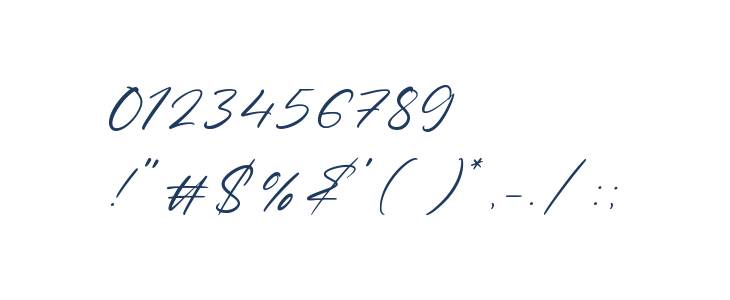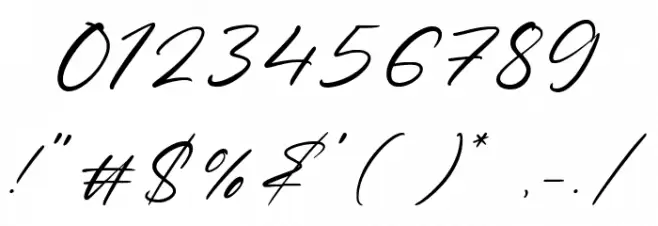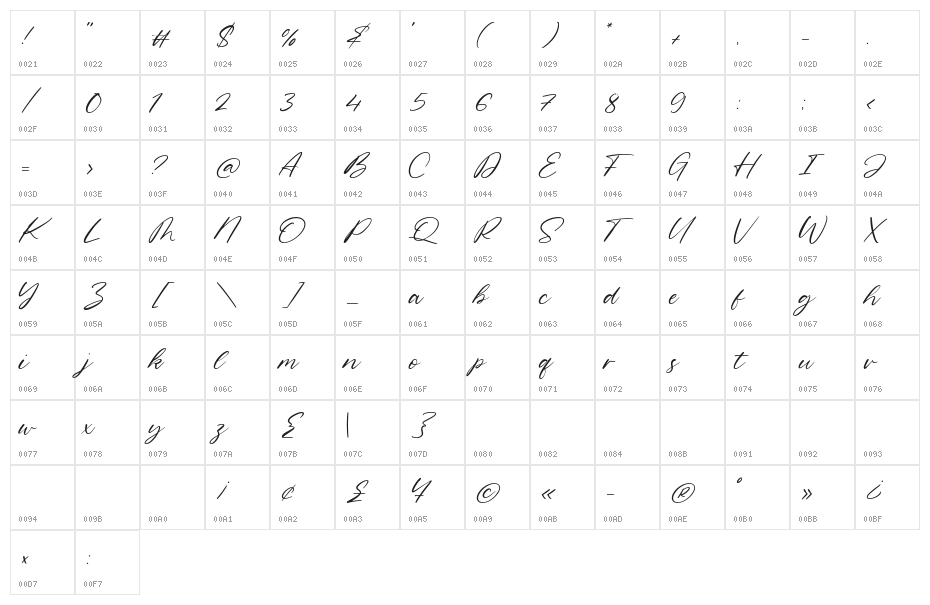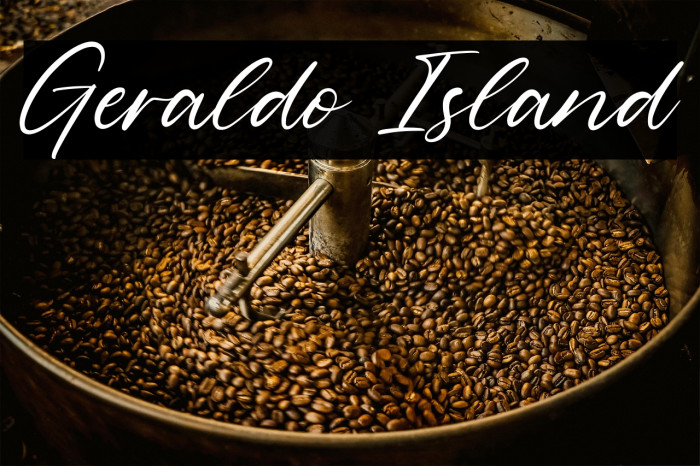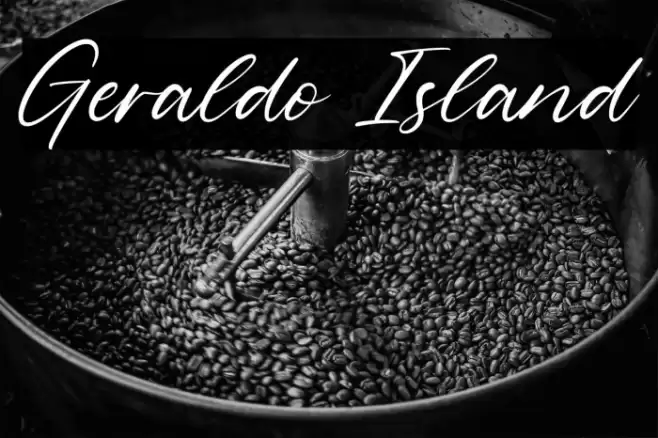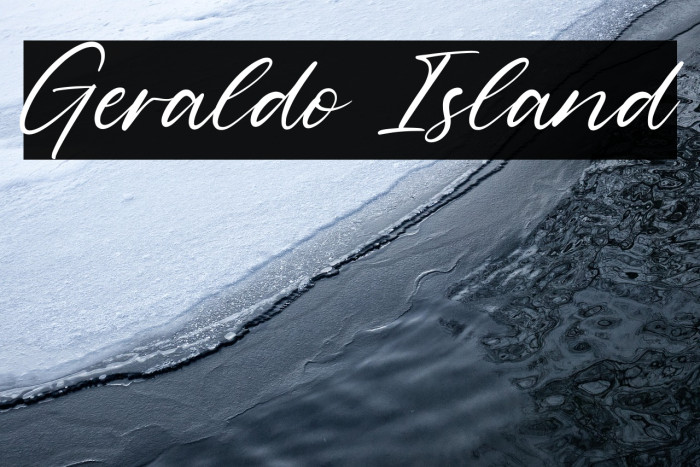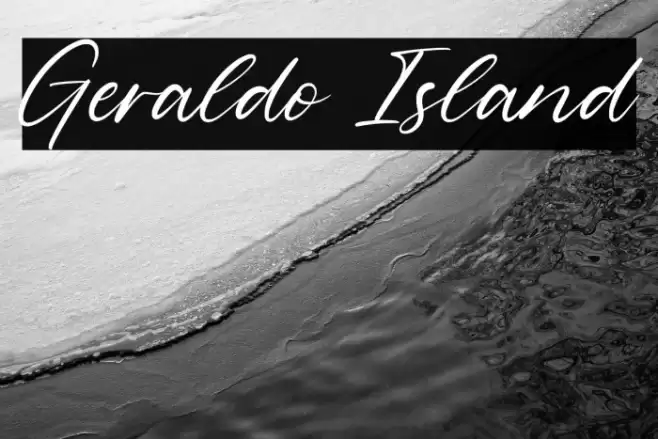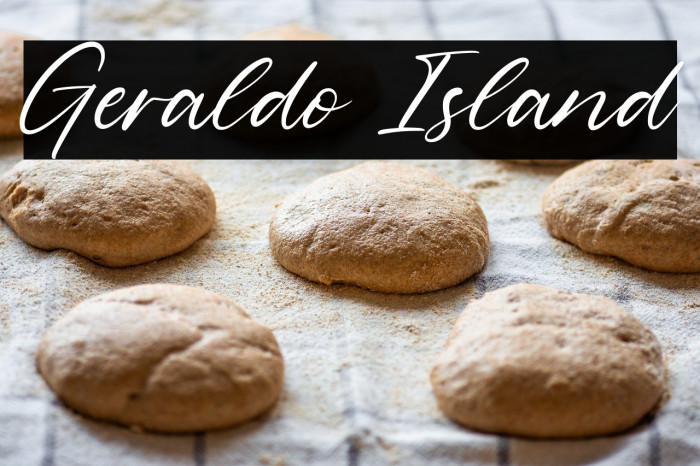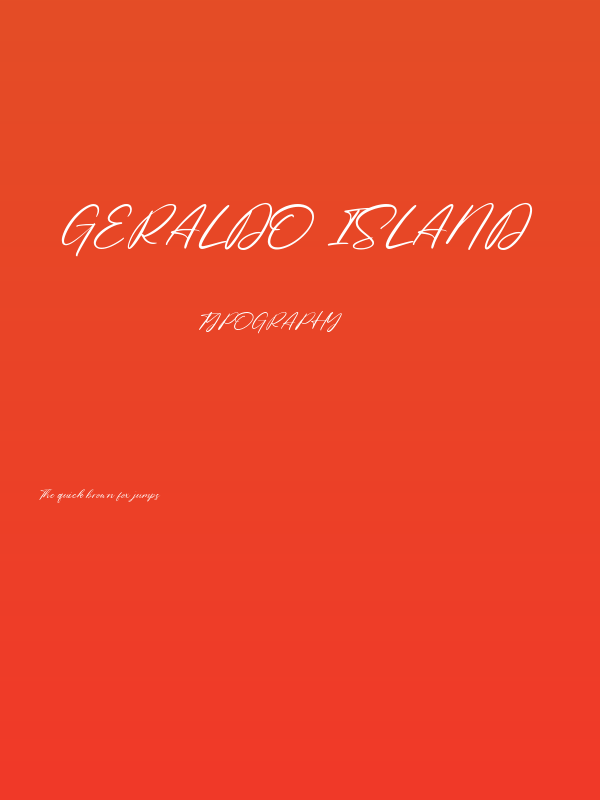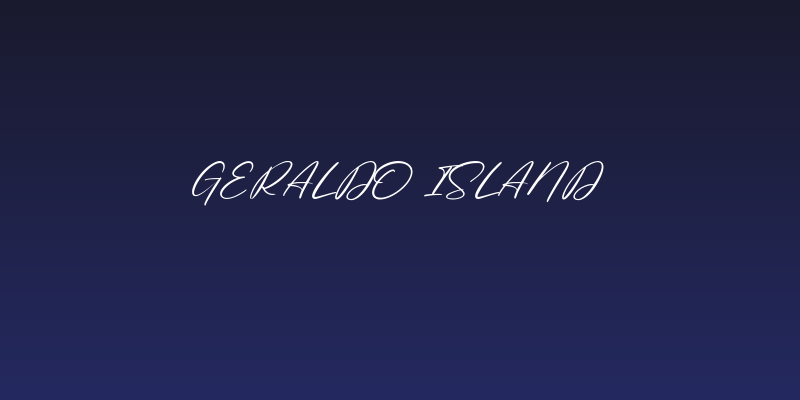
Geraldo Island Font
Geraldo Island Description
This elegant script font features a fluid, cursive style that mimics natural handwriting. The letters are connected, with smooth transitions and a slight slant, giving it a sophisticated and personal touch. The uppercase letters are slightly larger and more ornate, while the lowercase letters maintain a consistent flow. Numbers and special characters are designed to complement the overall aesthetic, ensuring a cohesive look. The font's graceful curves and loops make it ideal for projects that require a touch of elegance and personalization.
| Overall Style | Elegant, Personal |
| Proposed Projects | Ideal for wedding invitations, greeting cards, personal branding, and elegant logos. |